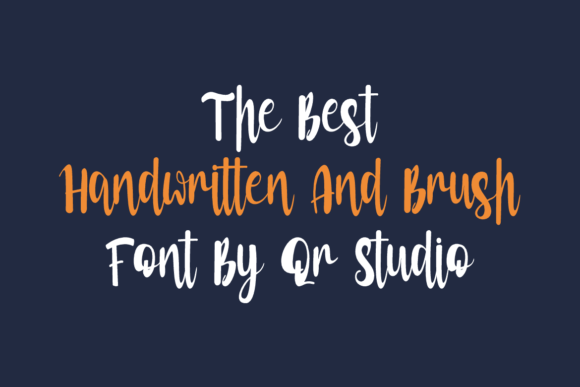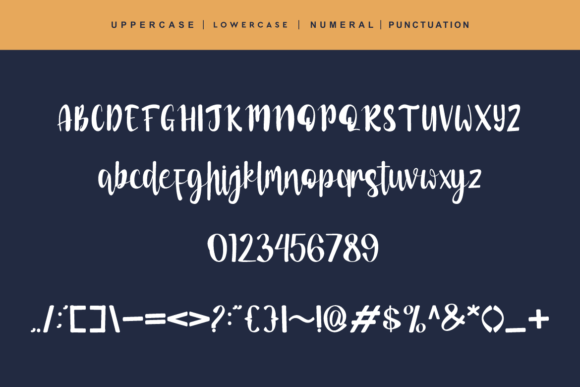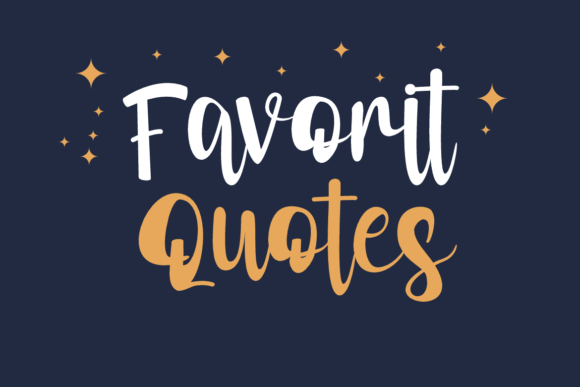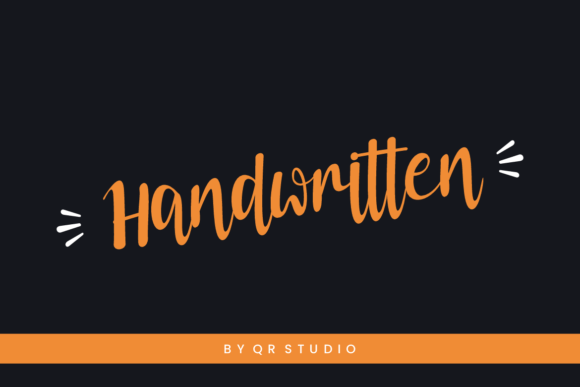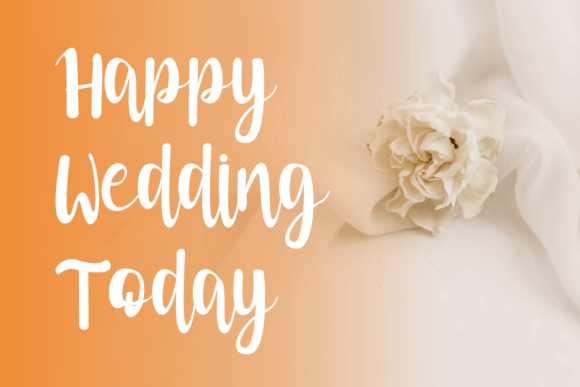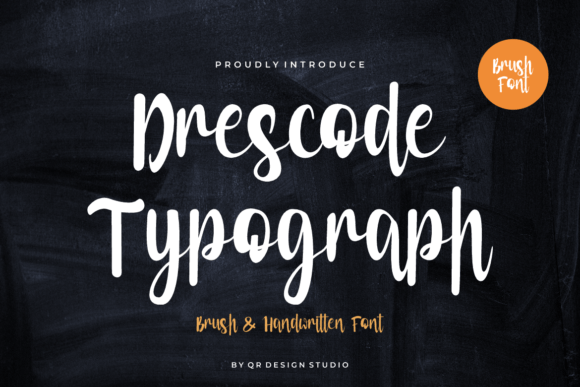
Drescode Typograph Font: Adding a Touch of Whimsy to Your Designs
Are you looking for a font that can add a dash of sweetness and romance to your designs? Look no further than the Drescode Typograph font. This beautiful, cursive handwritten font is perfect for designers and crafters who want to create stunning visual content that stands out from the crowd.
The Charm of Drescode Typograph
Drescode Typograph is a sweet and cursive handwritten font that exudes a sense of joy and romance. Its gentle curves and flowing lines make it perfect for a variety of design ideas, from wedding invitations and party decorations to social media graphics and branding materials. This font is sure to add a touch of whimsy and personality to any project.
Key Features of Drescode Typograph
- Cursive Handwritten Style: Drescode Typograph has a beautiful, cursive handwritten style that is both elegant and playful.
- Sweet and Romantic: This font is perfect for designs that require a touch of sweetness and romance.
- Versatile: Drescode Typograph can be used on a variety of design ideas, from digital graphics to print materials.
- Easy to Read: Despite its cursive style, Drescode Typograph is easy to read, making it perfect for body text and headlines.
Why Designers and Crafters Love Drescode Typograph
Designers and crafters love Drescode Typograph for its versatility and charm. This font can be used to create a wide range of designs, from feminine and delicate to bold and playful. Whether you’re creating social media graphics, branding materials, or printables, Drescode Typograph is sure to add a touch of personality to your designs.
Using Drescode Typograph in Your Designs
Using Drescode Typograph in your designs is easy. Here are a few tips to get you started:
- Pair it with Other Fonts: Drescode Typograph pairs well with other fonts, including sans-serif and serif fonts.
- Use it for Headlines and Body Text: Drescode Typograph is easy to read, making it perfect for both headlines and body text.
- Add it to Your Brand Kit: If you’re a brand designer, consider adding Drescode Typograph to your brand kit for a consistent look and feel.
Design Ideas to Get You Started
Need some inspiration for using Drescode Typograph in your designs? Here are a few ideas to get you started:
- Wedding Invitations: Use Drescode Typograph to create beautiful and elegant wedding invitations.
- Social Media Graphics: Add a touch of whimsy to your social media graphics with Drescode Typograph.
- Branding Materials: Use Drescode Typograph to create consistent branding materials, including business cards and brochures.
- Party Decorations: Create custom party decorations, including banners and garlands, with Drescode Typograph.
Drescode Typograph is a beautiful and versatile font that is perfect for designers and crafters who want to add a touch of whimsy and romance to their designs. With its cursive handwritten style and sweet, romantic charm, Drescode Typograph is sure to become a favorite in your design toolkit.